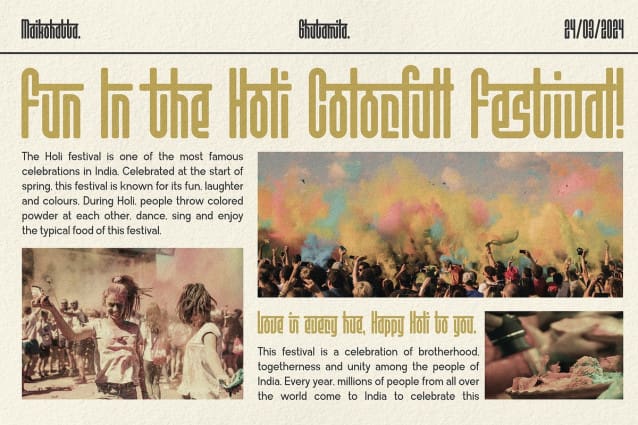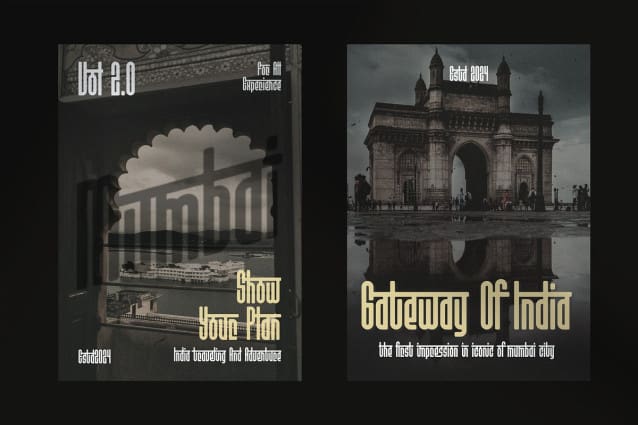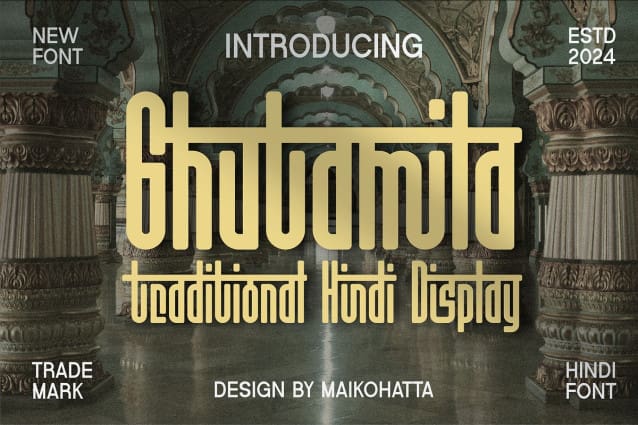
Ghutamila Font
Ghutamila Font – Traditional Hindi Display is a bold and authentic display font. The font is suitable for any branding project like logo, Template Design, esport, and many more. outstanding in a wide range of contexts.